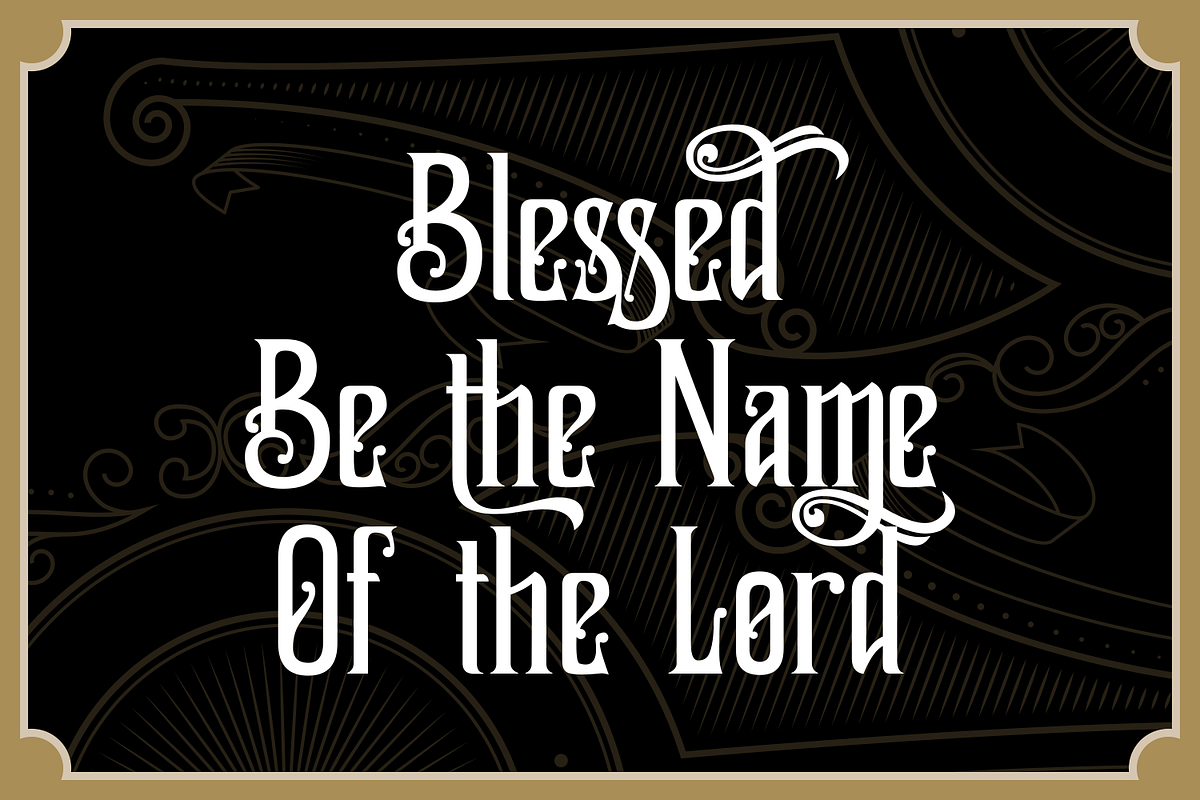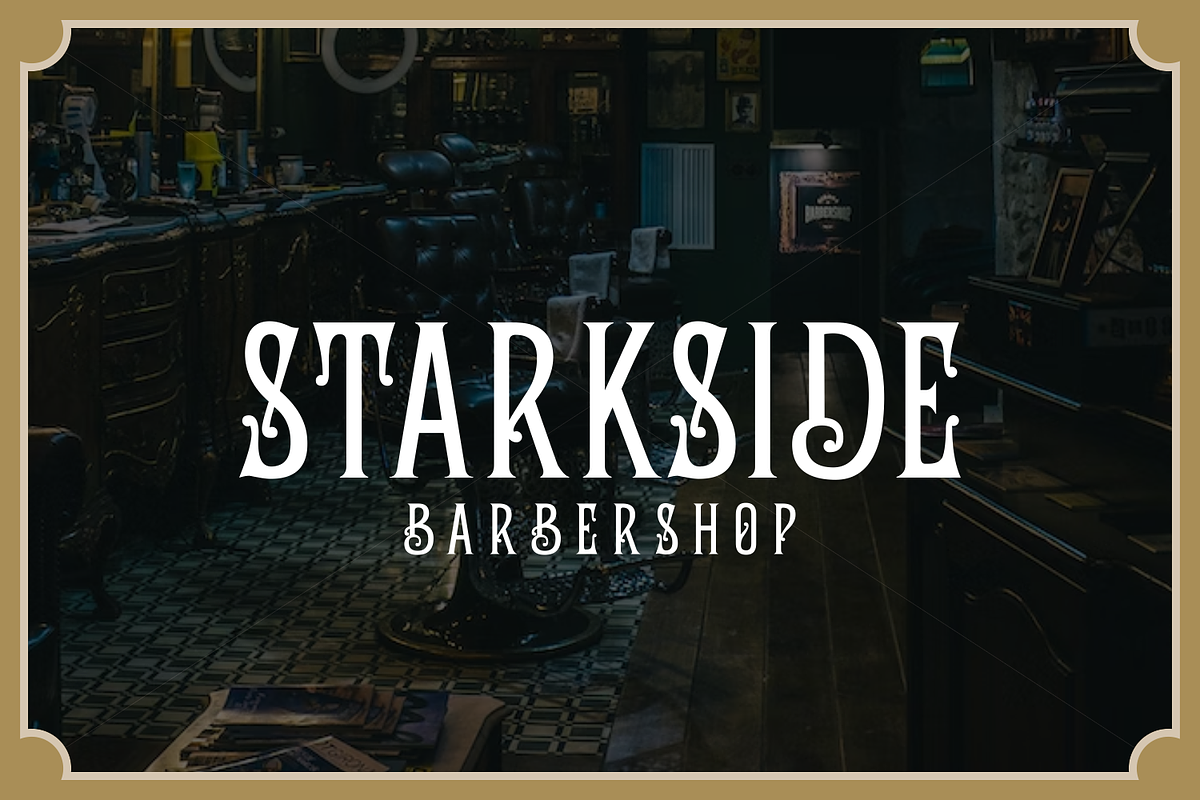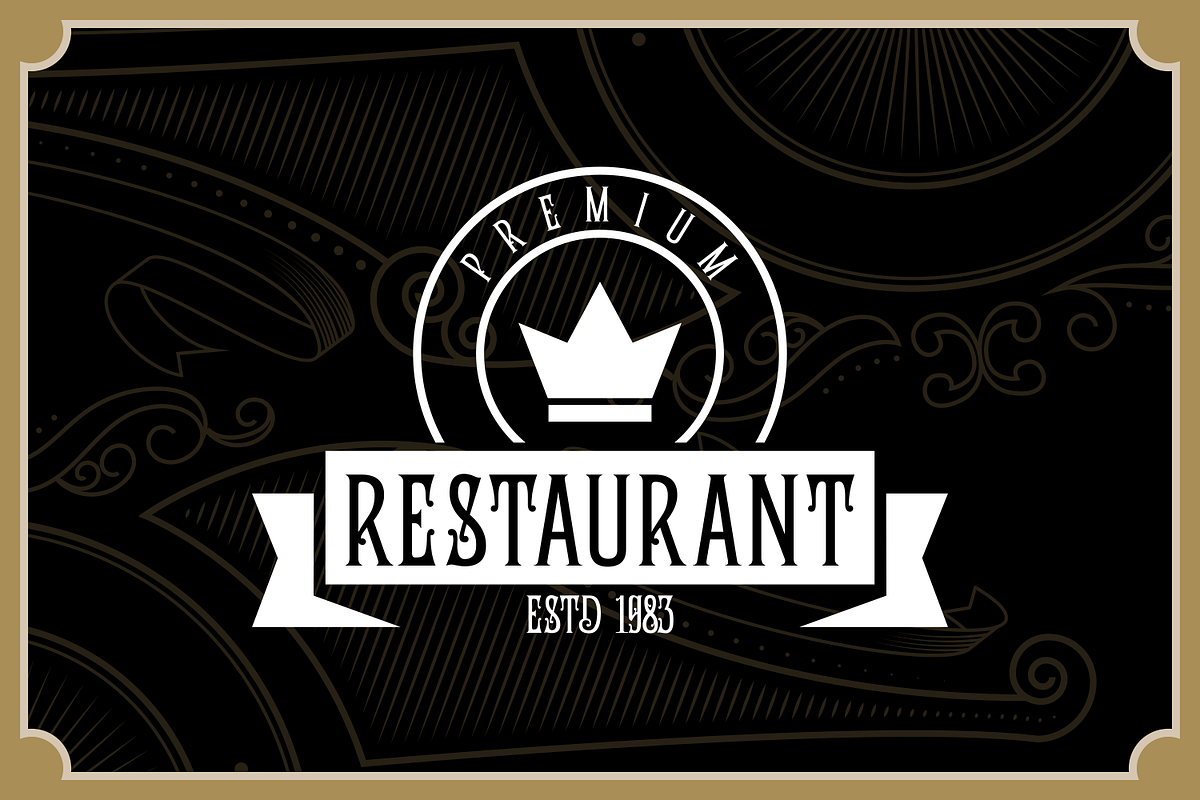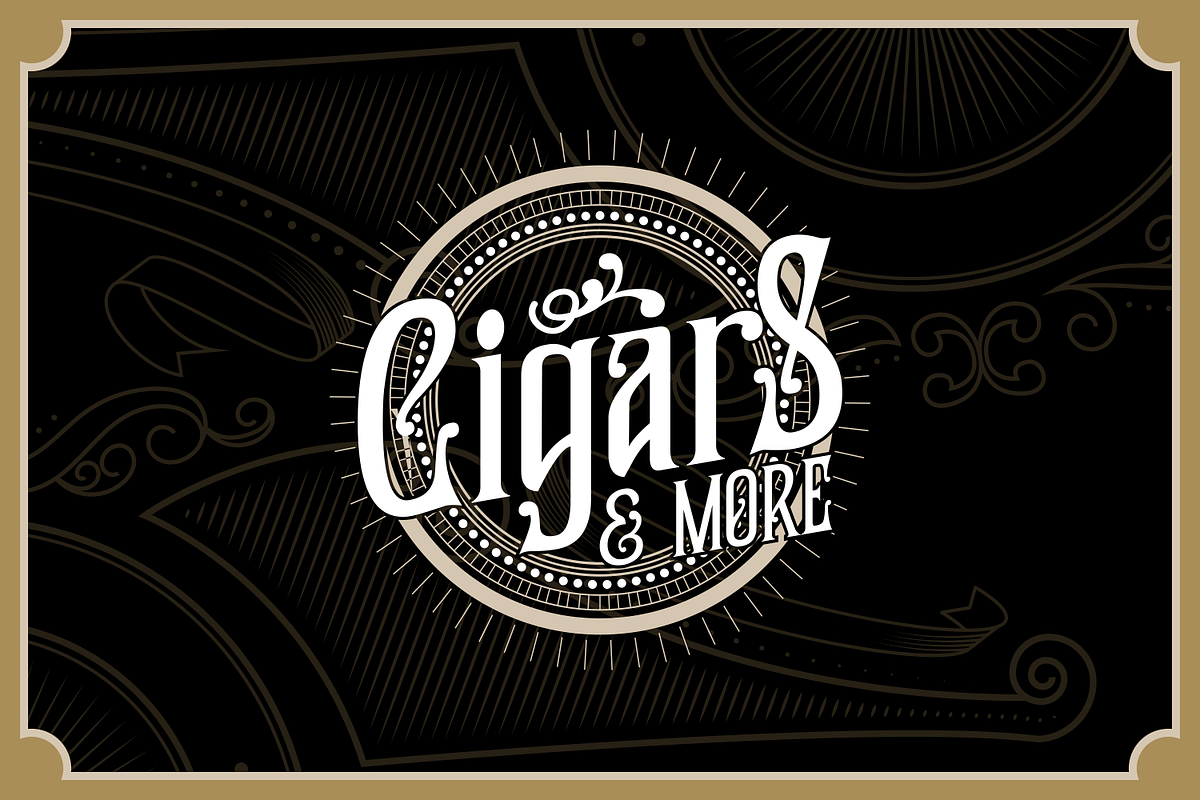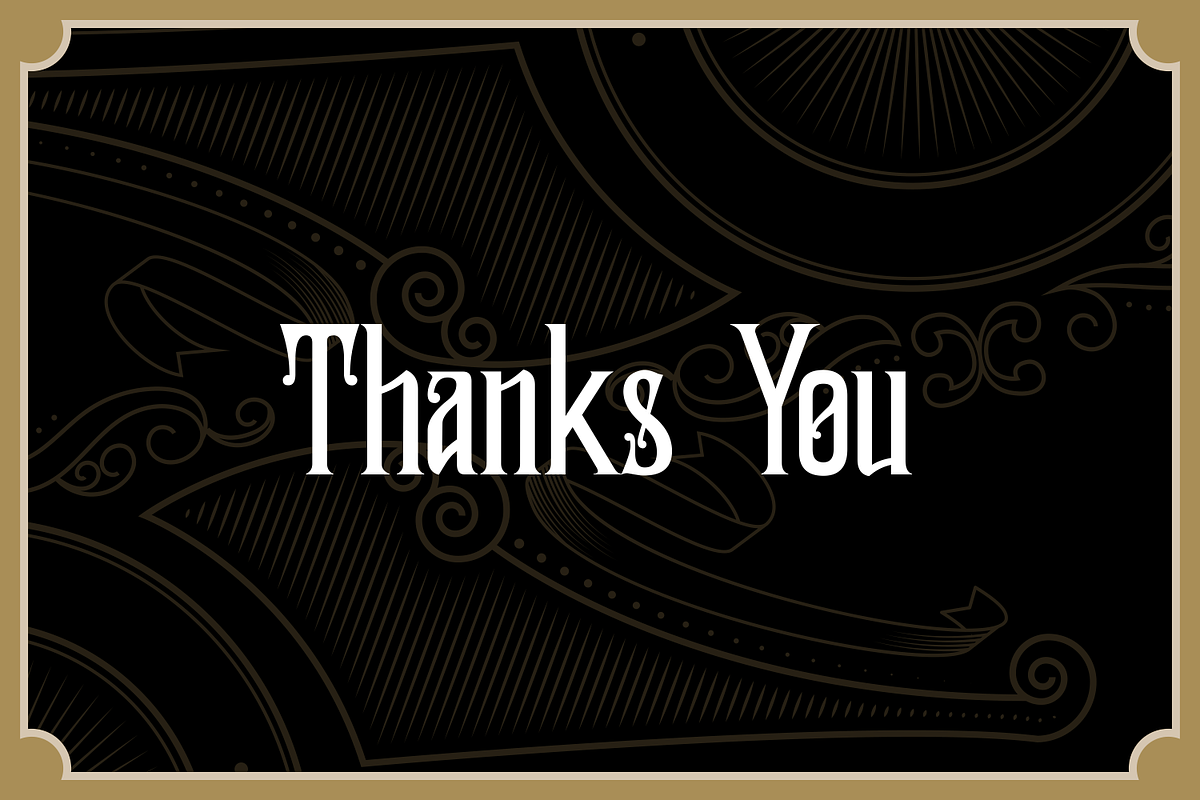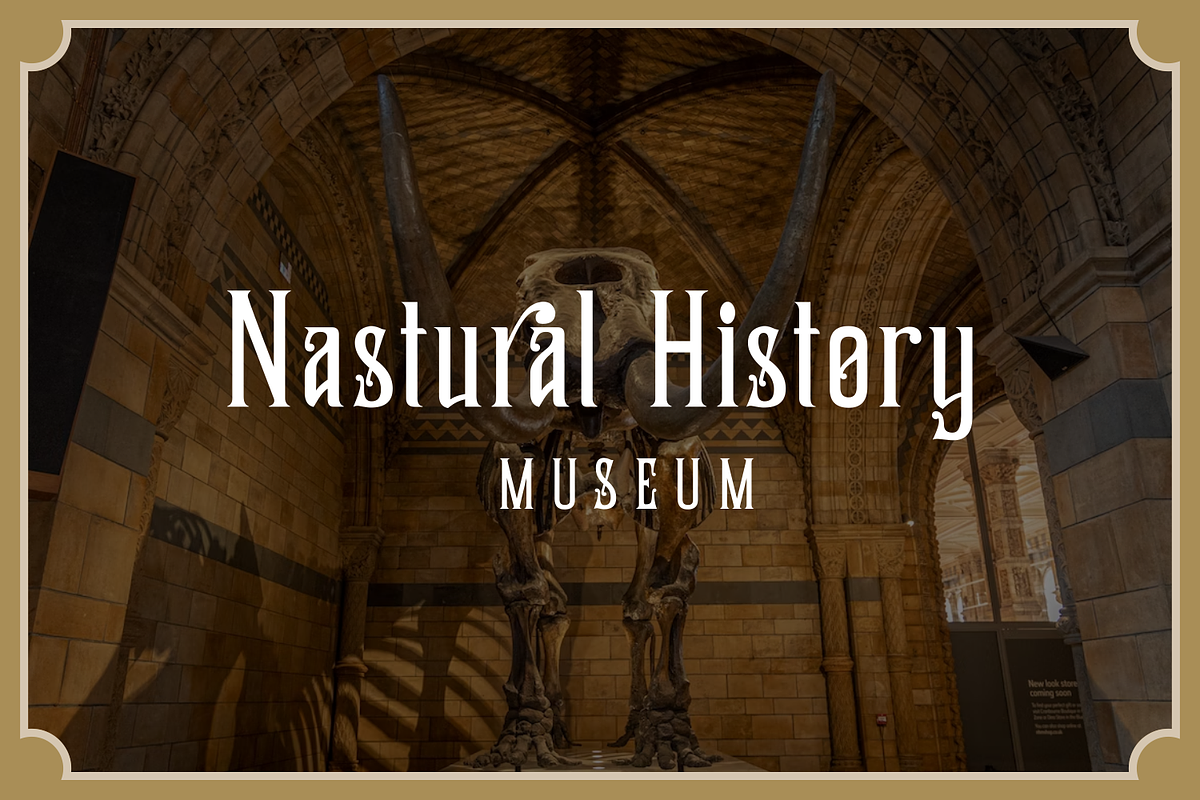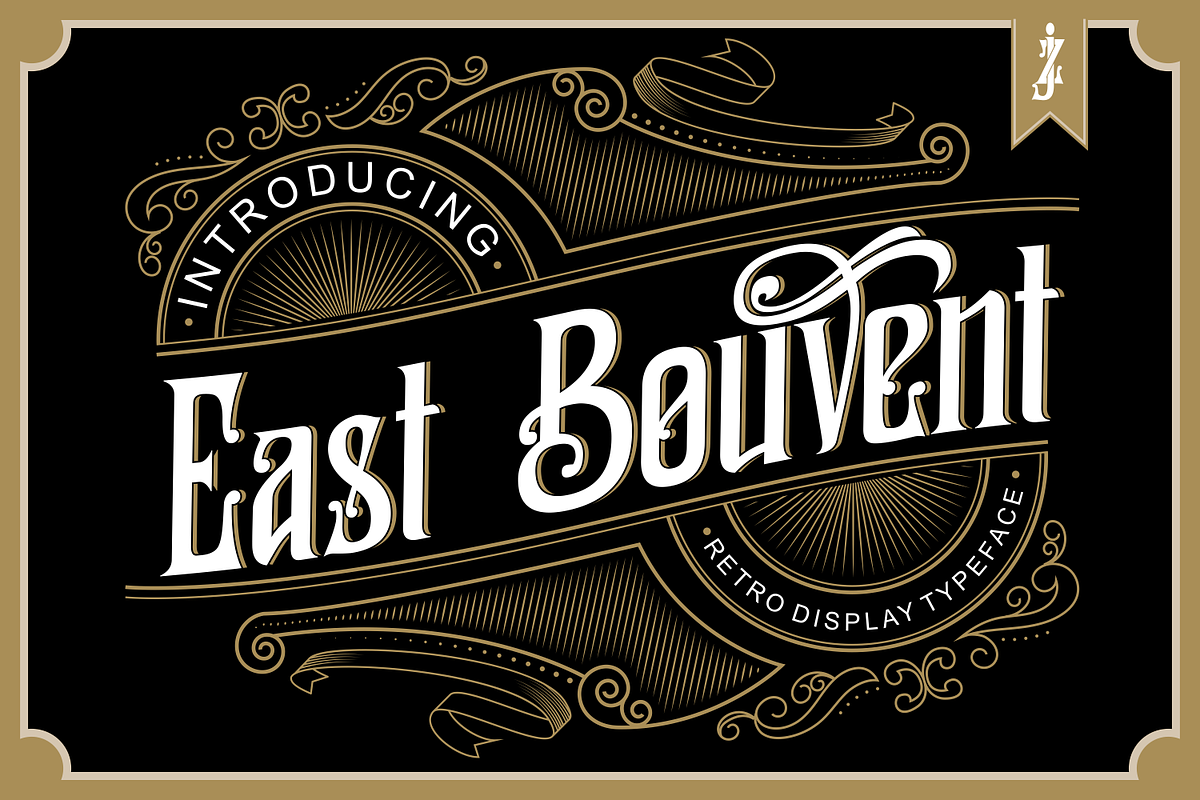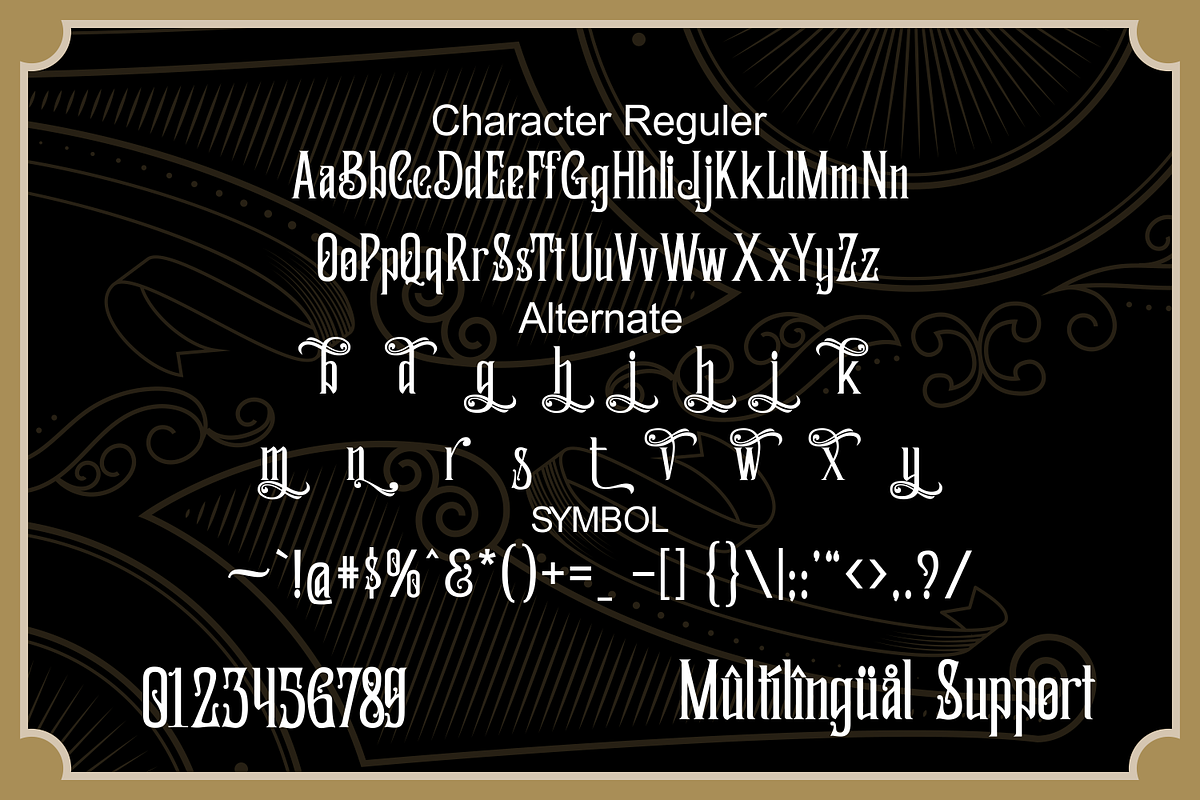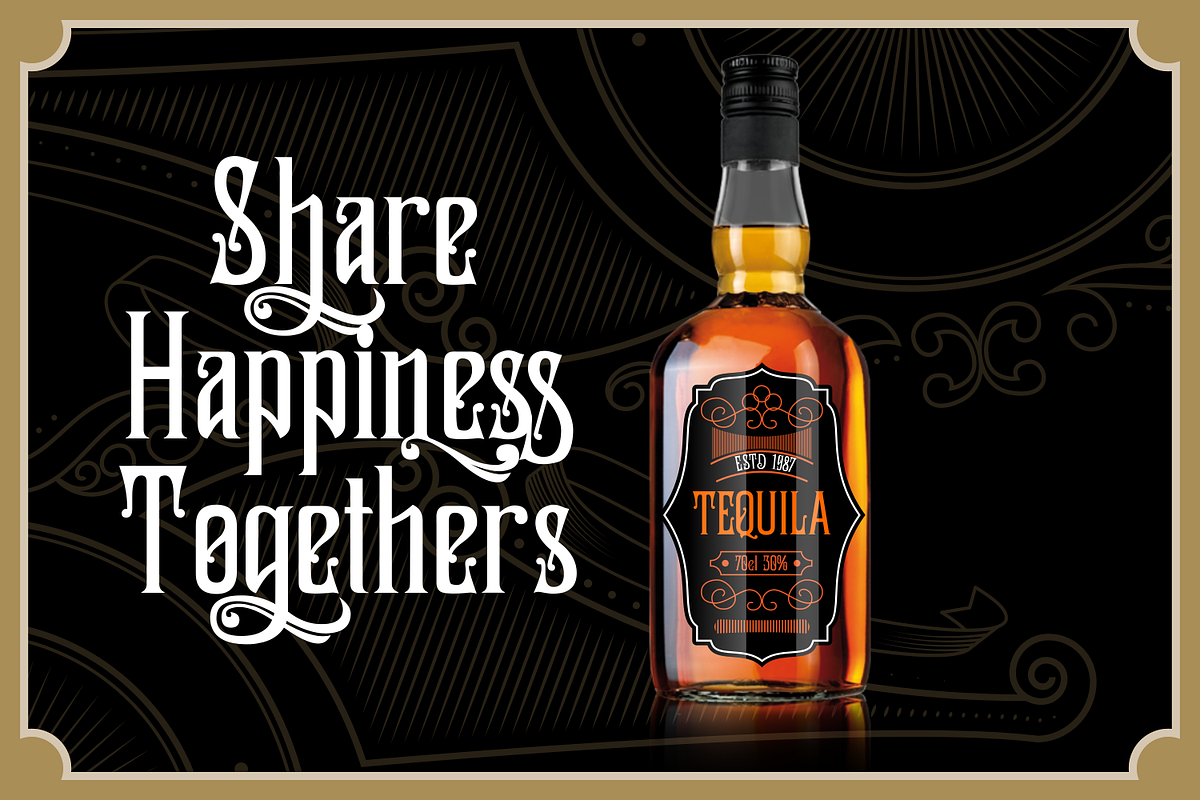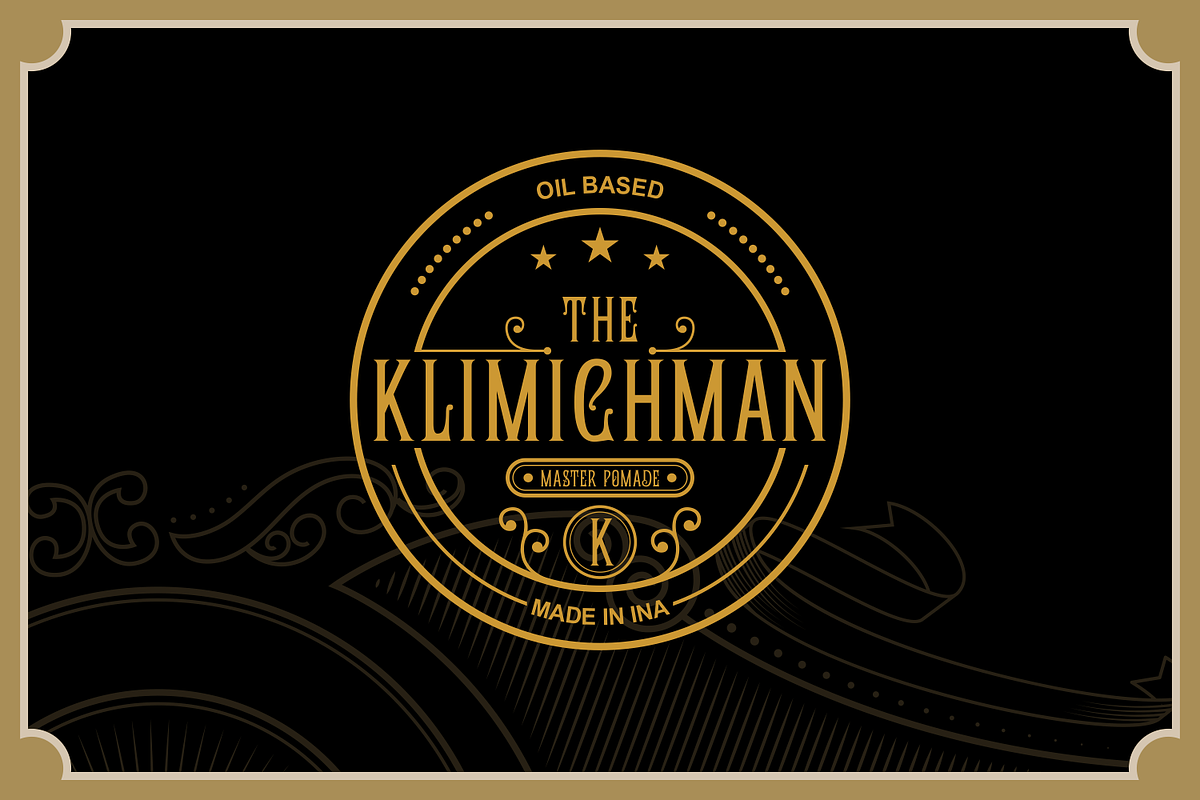
East Bouvent based on references to old luxury lettering, retro, vintage illustrations, and Victorian calligraphy. The retro East Bouvent style is suitable for a number of applications such as product labels, advertising, interiors and more Including : East Bouvent OTF East Bouvent TTF East Bouvent WOFF Alternate Multilingual support